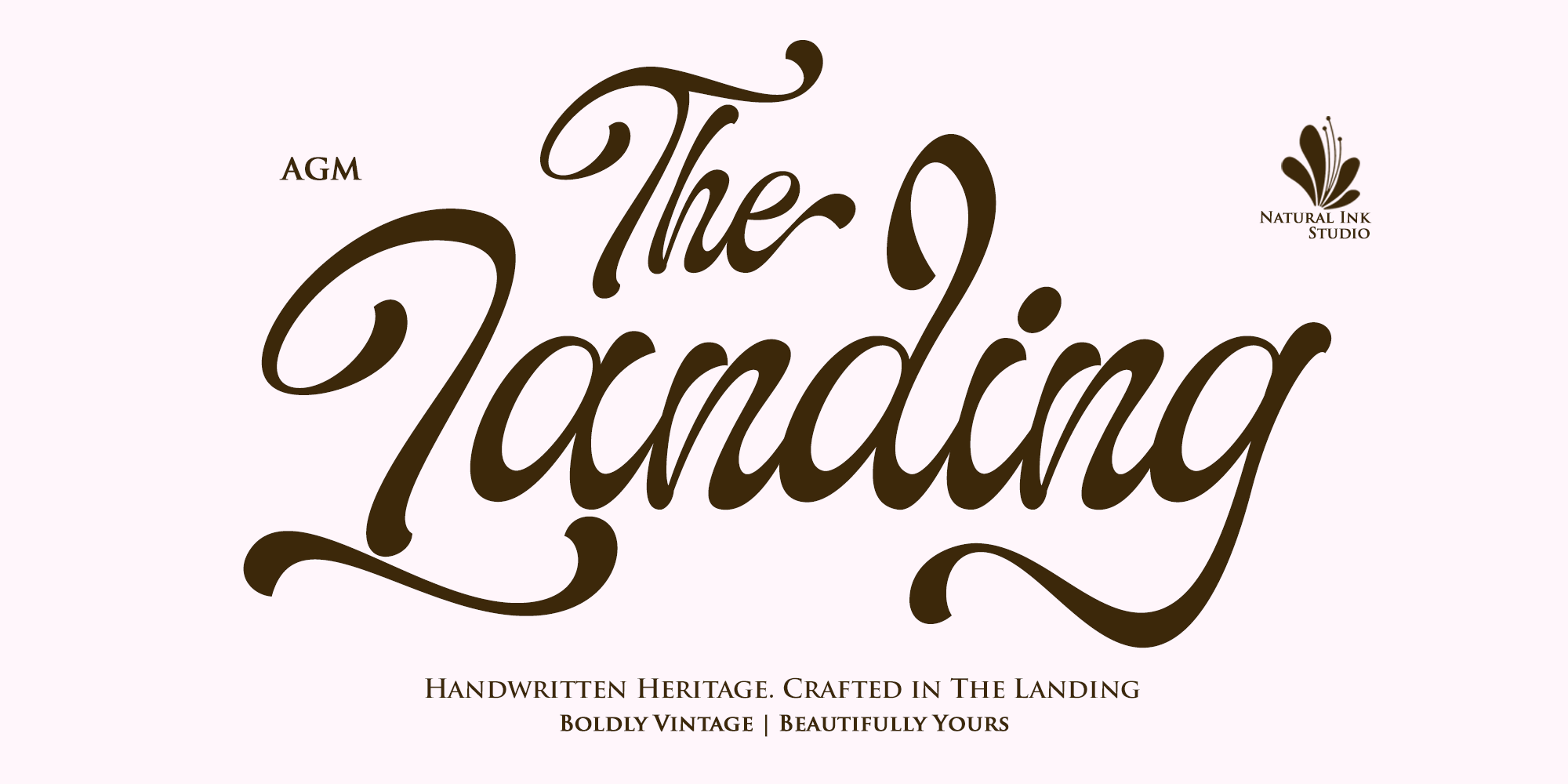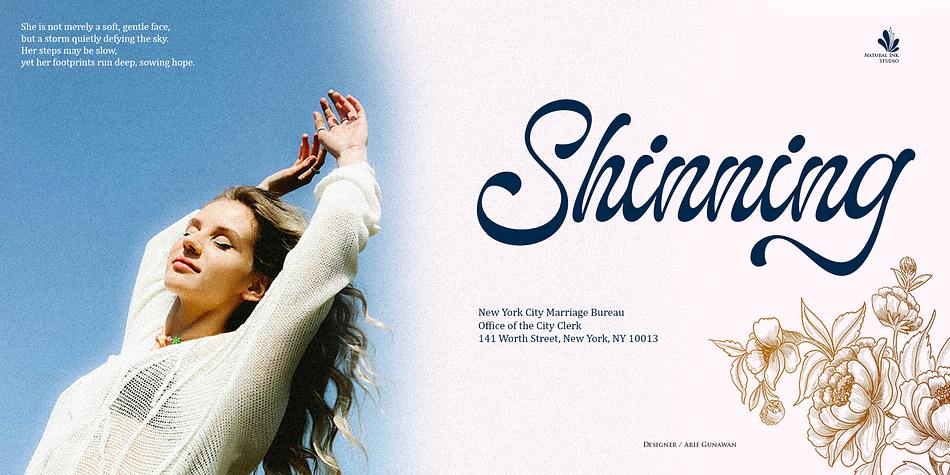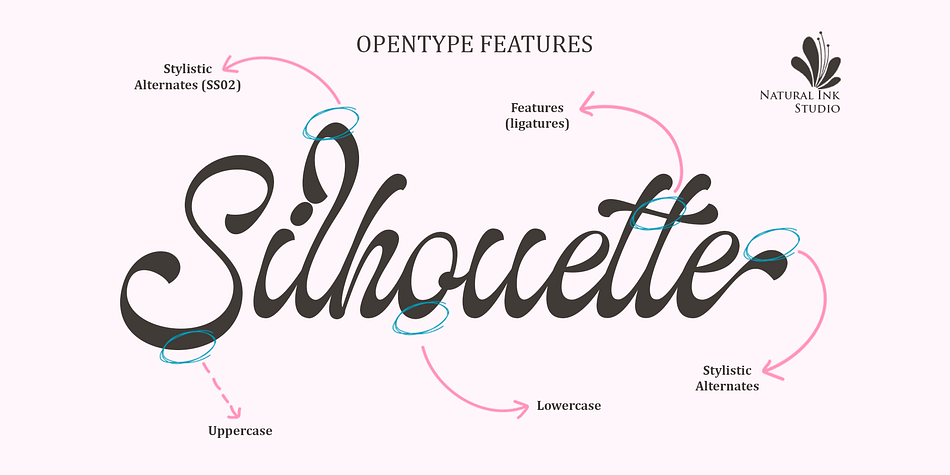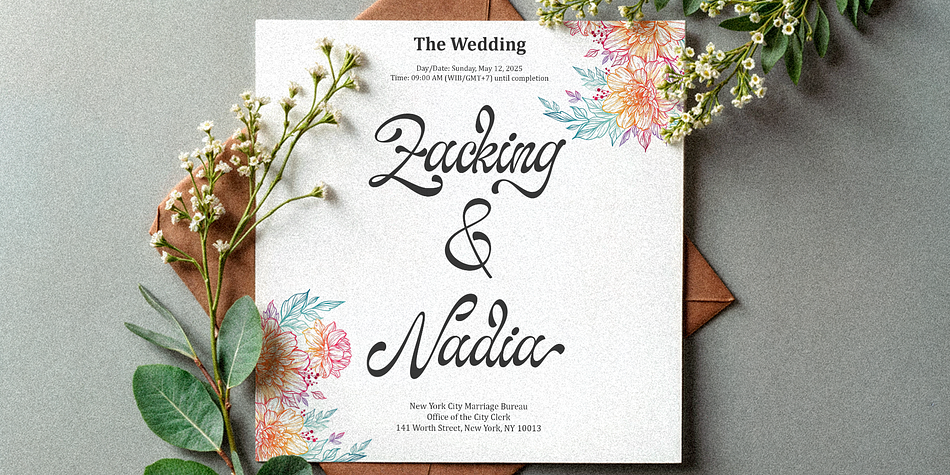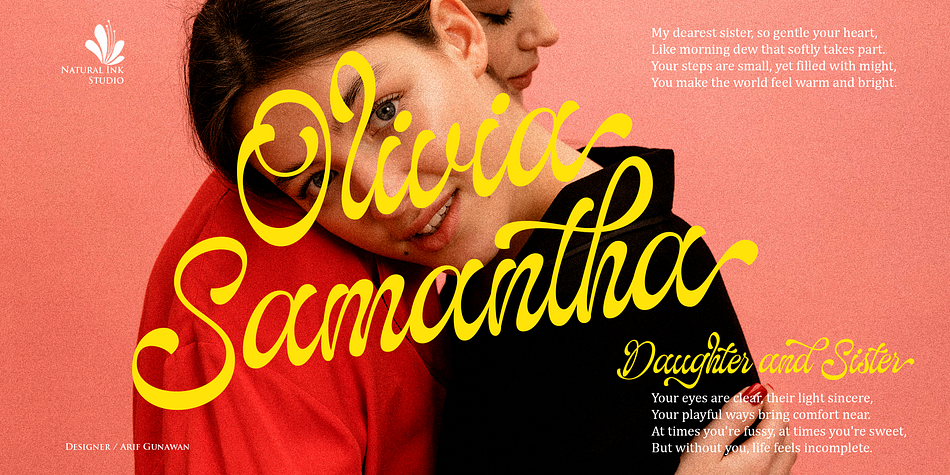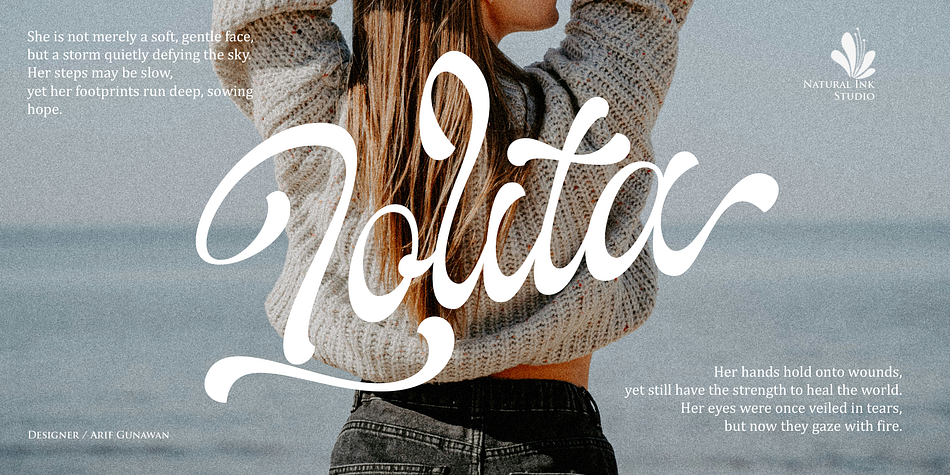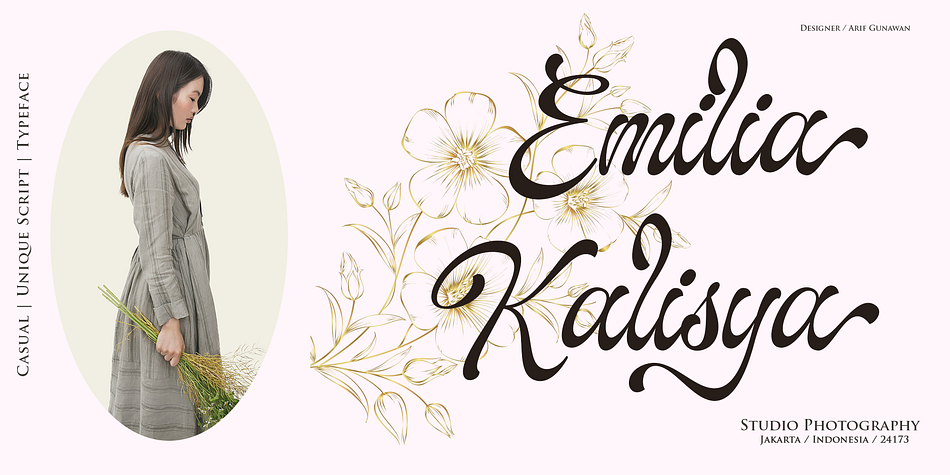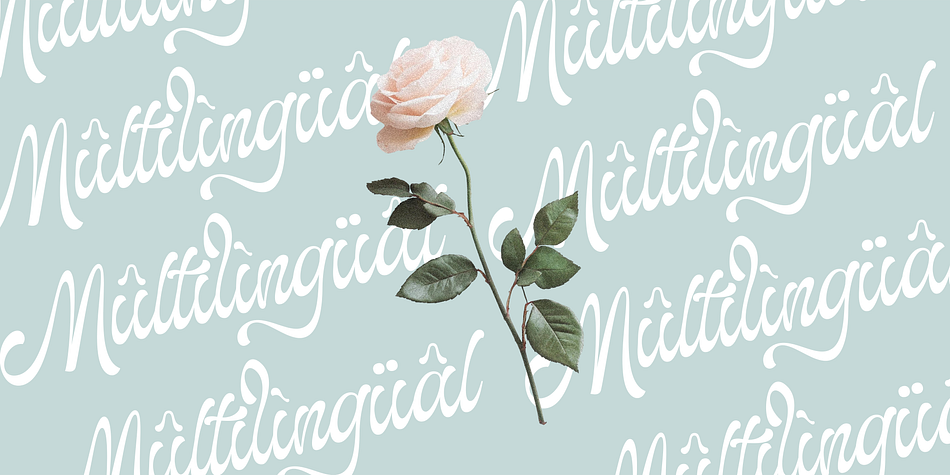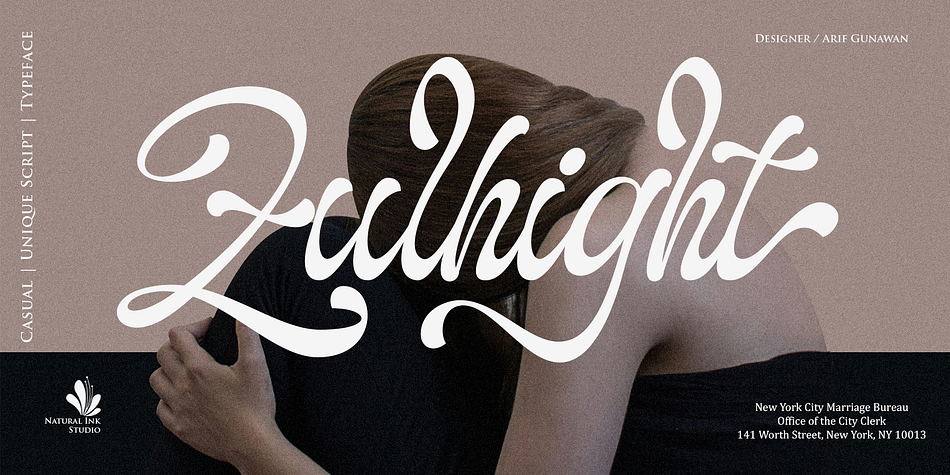
The Landing
Designed by Arif Gunawan, The Landing is a script font family. This typeface has two styles and was published by Natural Ink.
The Landing a professional script font with irregular thickness and slightly rounded edges, making the letters look different from regular script fonts. With a unique typeface, this font leans slightly towards retro fonts and includes a shadow file. This font is perfect for headlines, digital ads, magazines, websites, posters, brands, and logos. No matter the topic, this font will be a great asset to your font collection, as it has the ability to enhance the quality of any design. With this beautiful font, your project is sure to stand out. The Landing also comes with several unique alternates and ligatures, as well as multilingual support features that can make your project more attractive.